Iseki Agricultural Machinery Co., Ltd. is a comprehensive manufacturer specializing in agricultural machinery that was founded in Matsuyama, Ehime Prefecture in 1926. Under the philosophy of founder Kunisaburo Iseki, "I want to free farmers from harsh labor," the company has long been developing products and services related to agricultural production, such as tractors and combine harvesters, and in recent years has been aiming to further contribute to the agricultural sector, such as by releasing self-driving robotic agricultural machinery.
Iseki Agricultural Machinery adopted our font "UDKakugo_Large" for their tractor operation terminal "IMLT®" (ISEKI Machine Link Terminal) in 2018. We spoke online with Mr. Suzuki of Iseki Agricultural Machinery, who was actually involved in the selection and adoption of the font, about the reasons for adopting "UDKakugo_Large" and future business prospects.
Select "straight and sharp characters" for agricultural machinery used in harsh environments
――First of all, please introduce your company's design department.
Mr. Suzuki: The design department of Iseki & Co., Ltd. is in charge of overall design related to products developed in-house. The work of the design department is mainly done such as character and logo design used for the product, coloring of the product, sketching when thinking about the appearance design, creation of 3D data, and UI design of the operation screen liquid crystal system. I have. There is no particular division of fields, and everyone is working evenly.
In addition, when developing a new product, it is a feature of our design department that several designers are assigned and all the designs are done by those members.
――Please tell us a little more about the handling of characters (fonts) in your design department.
Suzuki: The designer makes it according to the image of the product. For example, select a font with a good atmosphere from the font service "LETS". However, there aren't many fonts for agricultural machinery that don't have to be tampered with, so I'm constantly fine-tuning them to match the image of the product.
――You said, "There aren't many fonts that you don't have to play with the design for agricultural machinery at all", but there are selections and directions of characters (fonts) unique to agricultural machinery that need to be adapted to all weather and situations. Is it?
Mr. Suzuki: Agricultural machinery is a product that is used in harsh environments, so we often adjust the characters to be straight and sharp. The characters themselves should be thickened, three-dimensional, and the decals displayed on the sides should be italic. The characters displayed on the product are completed through processes such as assuming the actual usage environment and inspiring us designers through fieldwork at the agricultural site.
I was also in charge of designing the mini cultivator "My Pet KCR7 Series" most recently, and the font for this product is Eurostile®, which is included in "Monotype LETS". This Eurostile® is a very straight and sharp European font, with a wide variety of weights, and I personally like it very much.
"UDKakugo_Large" resonated with my sensibilities. Its comfort is also conveyed to my farm customers.
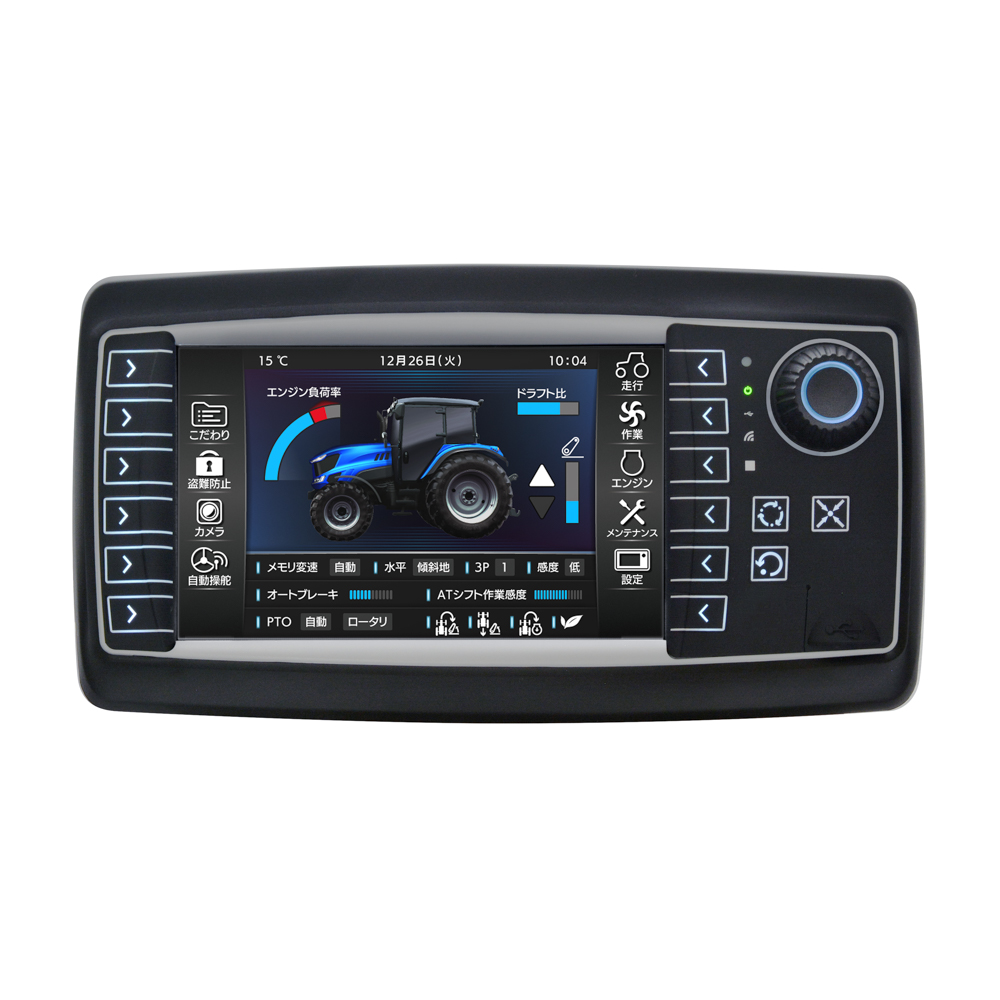
-- Now, could you look back on the process that led to our universal design font, "UDKakugo_Large," being adopted for "IMLT®"?
Suzuki-san: Initially, we envisioned that the tractor operation terminal "IMLT®" would be used to check the screen for just a moment while driving. Therefore, we needed a font that could instantly and correctly convey information. In addition, we needed to display as much information as possible on a 7-inch screen, so Universal Design fonts gradually became more and more advantageous. Furthermore, we realized that an embedded font was necessary to display the text on the tractor operation terminal, and since this was our first experience of installing an embedded font on a tractor operation terminal, we searched around and consulted with several font manufacturers at the time.
-- You consulted with other font manufacturers. Why did you choose us?
Suzuki-san: The sales person at the time was very flexible in his response, and compared to other font manufacturers, the website had the most comprehensive information, so even in those small details we felt very reassured.
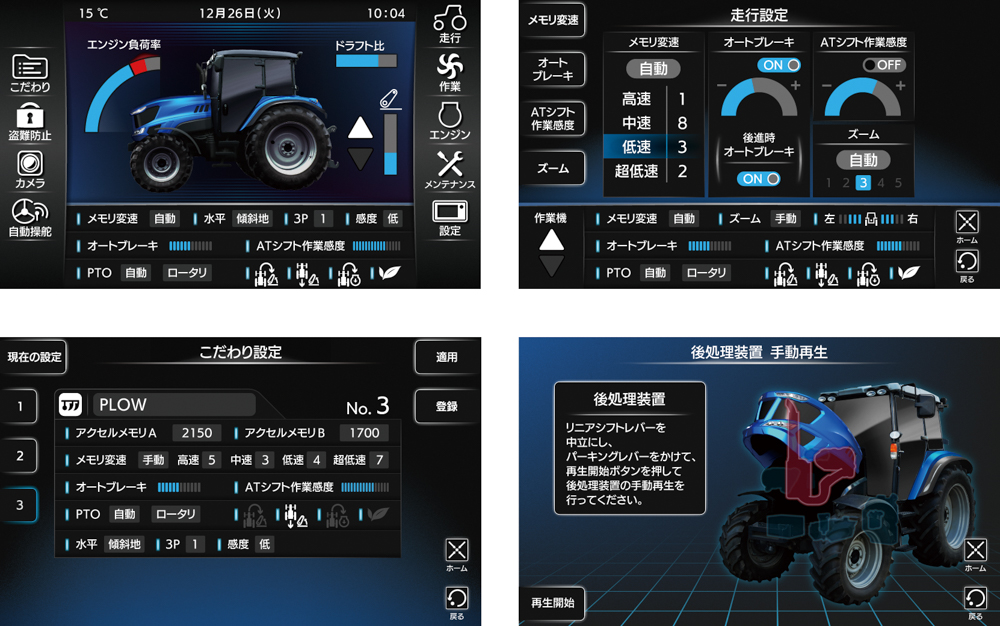
-- We are pleased that we were able to accommodate your company's wishes! From here, I would like to talk to you from a font design perspective. First of all, were you aware of fonts with the concept of universal design (Universal Design) itself?
Mr. Suzuki: We were aware of the existence of universal design (Universal Design) fonts. For example, we were actually using another company's Universal Design font in our printed materials.
Since its founding in 1926, it has contributed to the modernization of agriculture as a comprehensive manufacturer of agricultural machinery. We have consistently pursued the efficiency and labor saving of agriculture, and in the process, we have developed a number of agricultural machines ahead of others and supplied them to the market. Always thinking about the world's population growth and food problems, as well as today's food self-sufficiency and land conservation issues, we continue to work today to fulfill the social mission of agricultural machinery manufacturers.